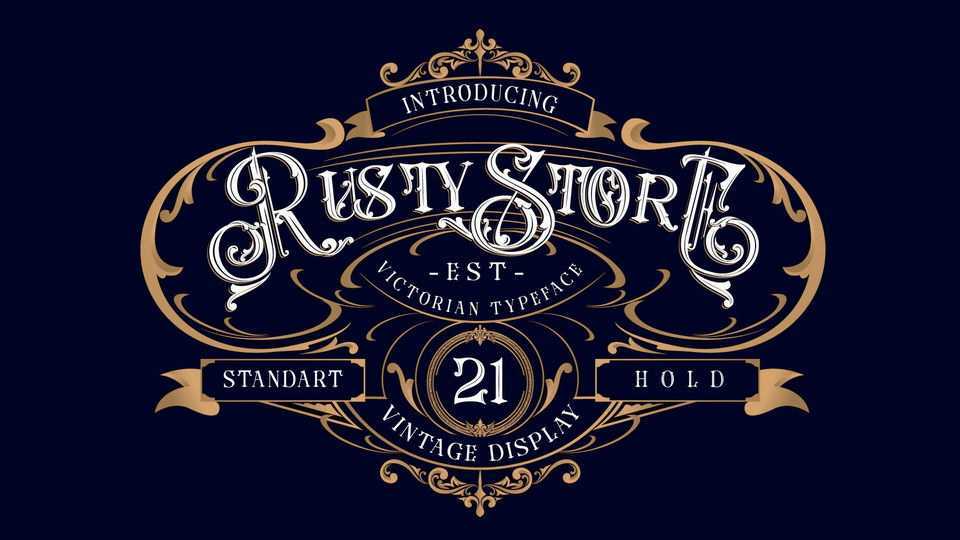
Download Rusty Store font, a decorative typeface, inspired by the classic 1800’s era and combined with today’s trends and produces a very elegant and charming appearance.